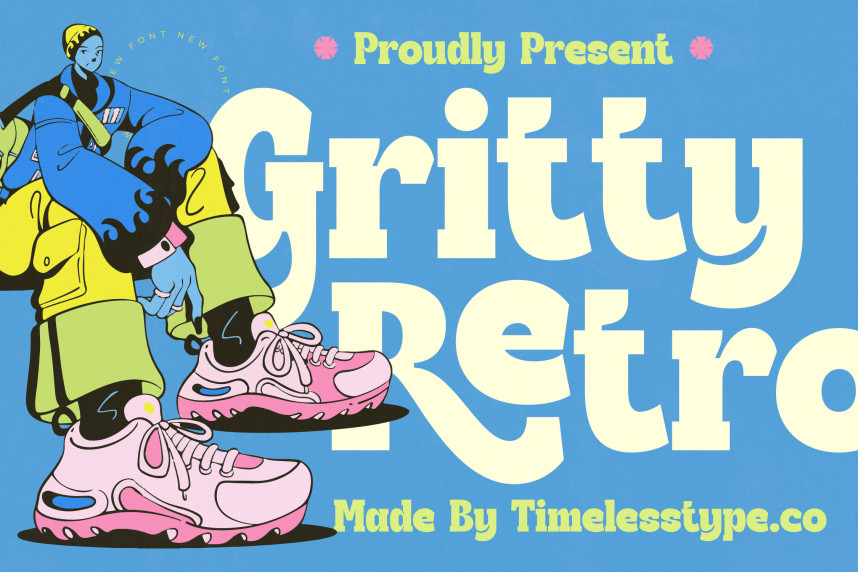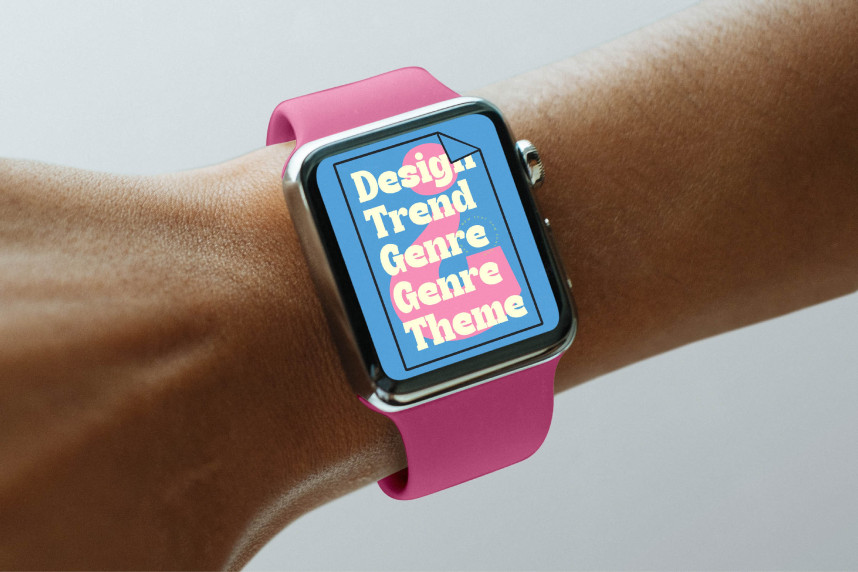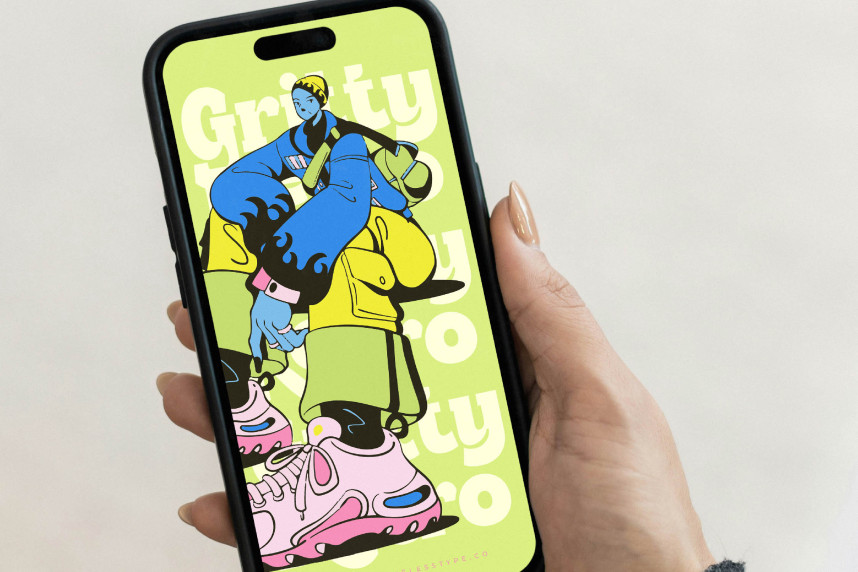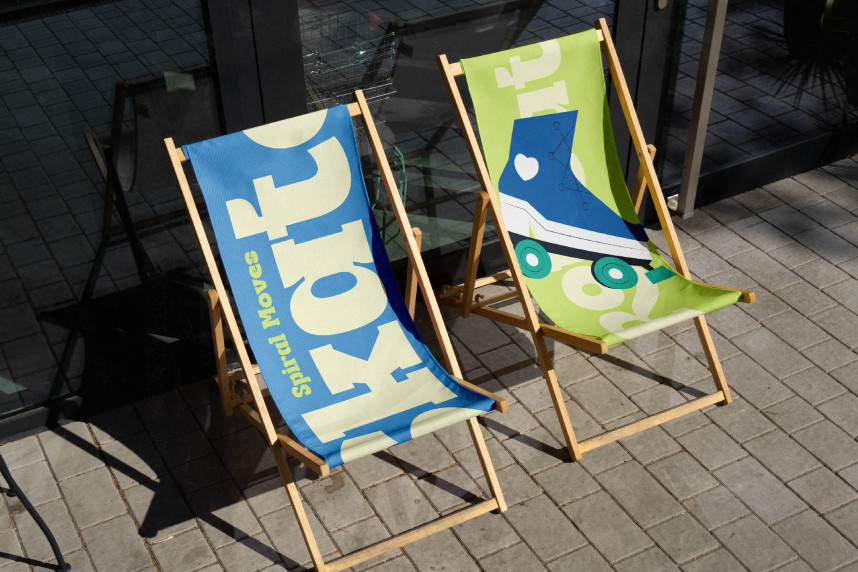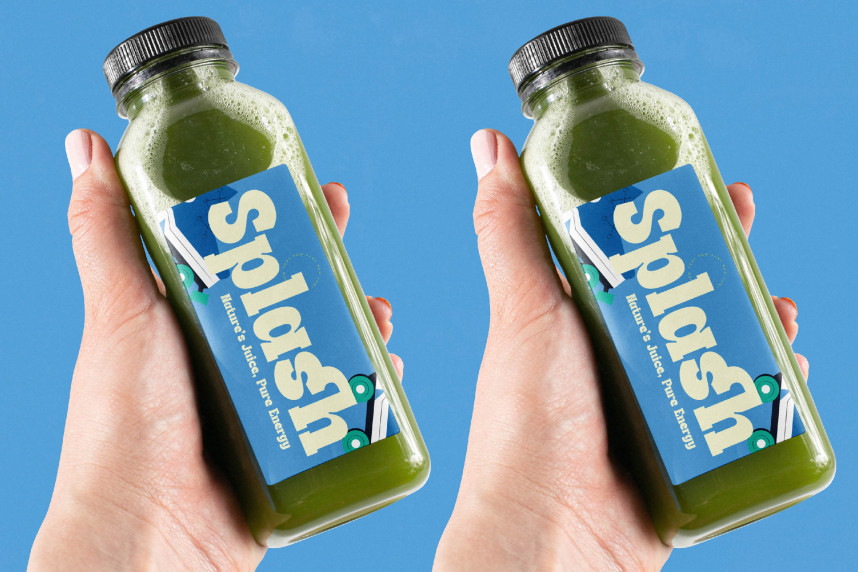
Gritty Retro – Display Serif Font
Gritty Retro – Display Serif Retro Sans Serif. This exceptional typeface masterfully blends the bold, confident lines of a classic display sans serif with an undeniable retro flair, delivering a truly unique aesthetic. Its generous weight and softly rounded terminals create an approachable yet powerful presence, ensuring your message commands attention with an authentic, vintage-inspired character.
Elevate your visual narratives and make an unforgettable statement with this dynamic display font. Font Gritty Retro – Display Serif Retro Sans Serif is perfect for a myriad of applications, from impactful branding and eye-catching packaging to engaging editorial layouts, bold headlines, and vibrant social media campaigns. Its versatile design ensures exceptional legibility and a captivating personality, making it an ideal choice for projects demanding both style and substance.
Reach a global audience with ease and expand your creative horizons. With its extensive multilingual support, Font Gritty Retro – Display Serif Retro Sans Serif adapts seamlessly across global markets, making it incredibly versatile for international projects. This feature ensures your designs resonate culturally and linguistically, maintaining their professional appeal and iconic retro style no matter where they are showcased.
Invest in a typeface that truly stands out and infuses your designs with unparalleled character. Font Gritty Retro – Display Serif Retro Sans Serif offers a powerful combination of timeless retro appeal and contemporary robustness, making it an indispensable asset for designers seeking to create memorable impressions. Choose this font to imbue your work with a distinctive voice and unmistakable charm.